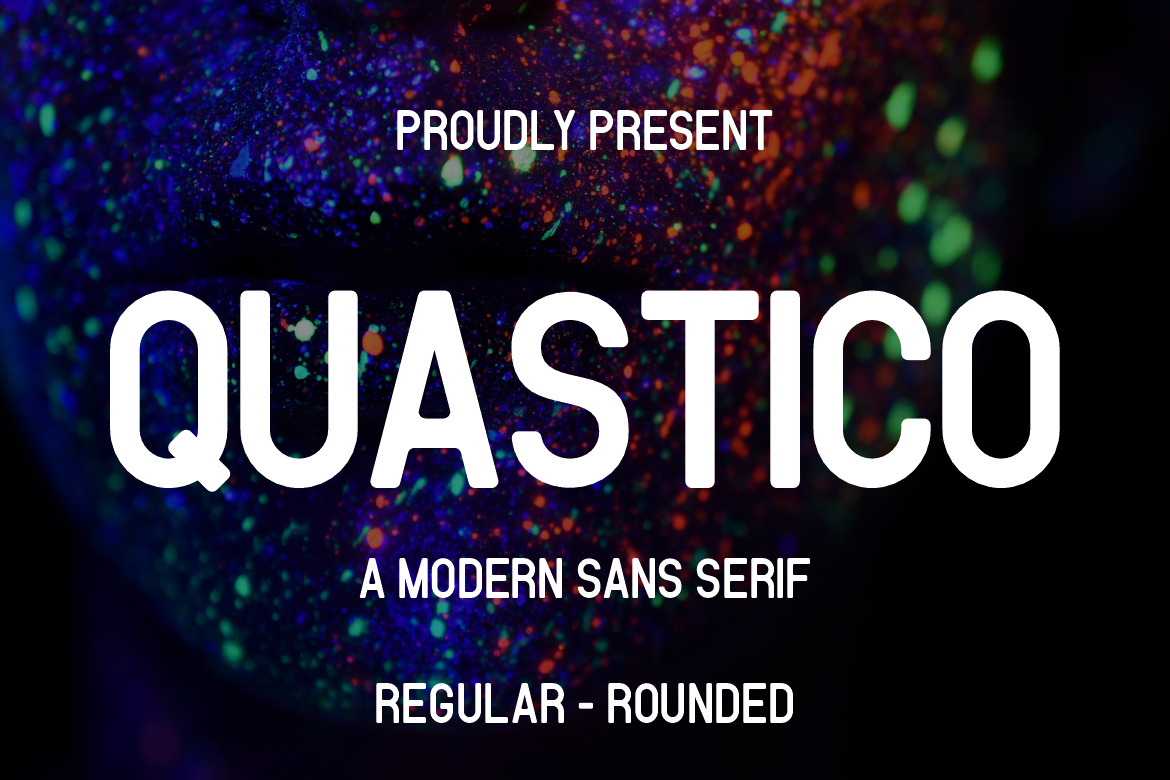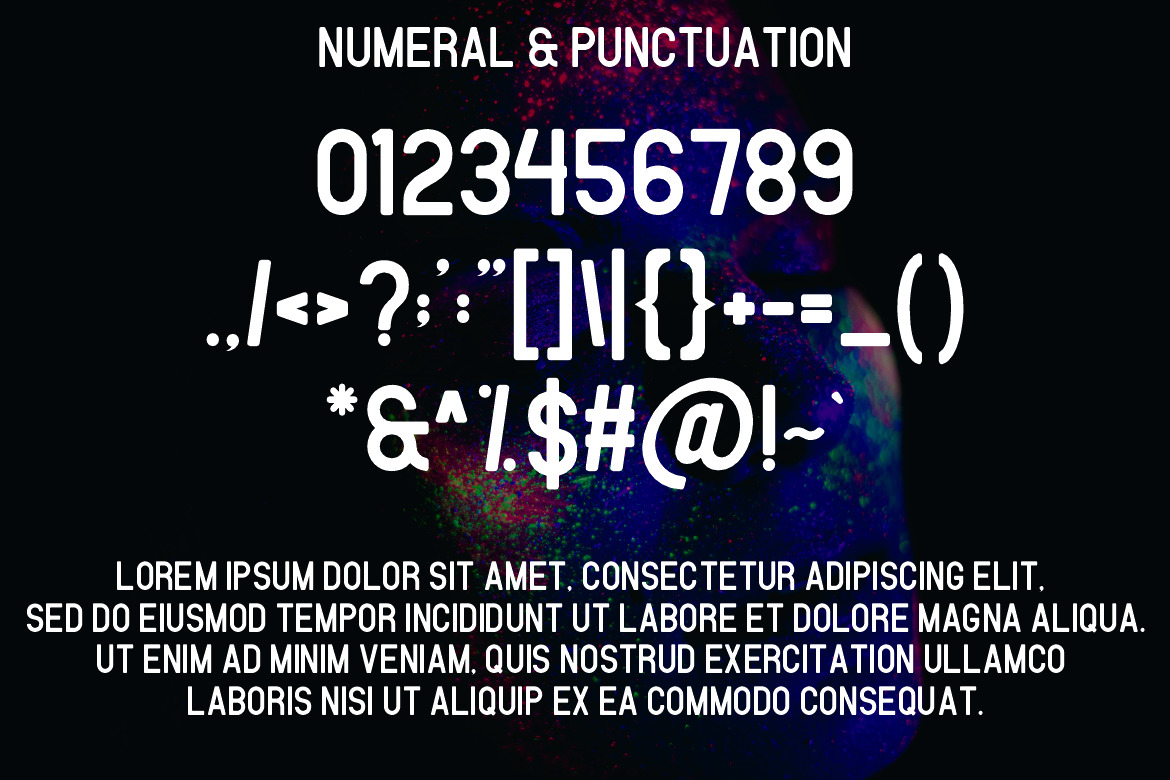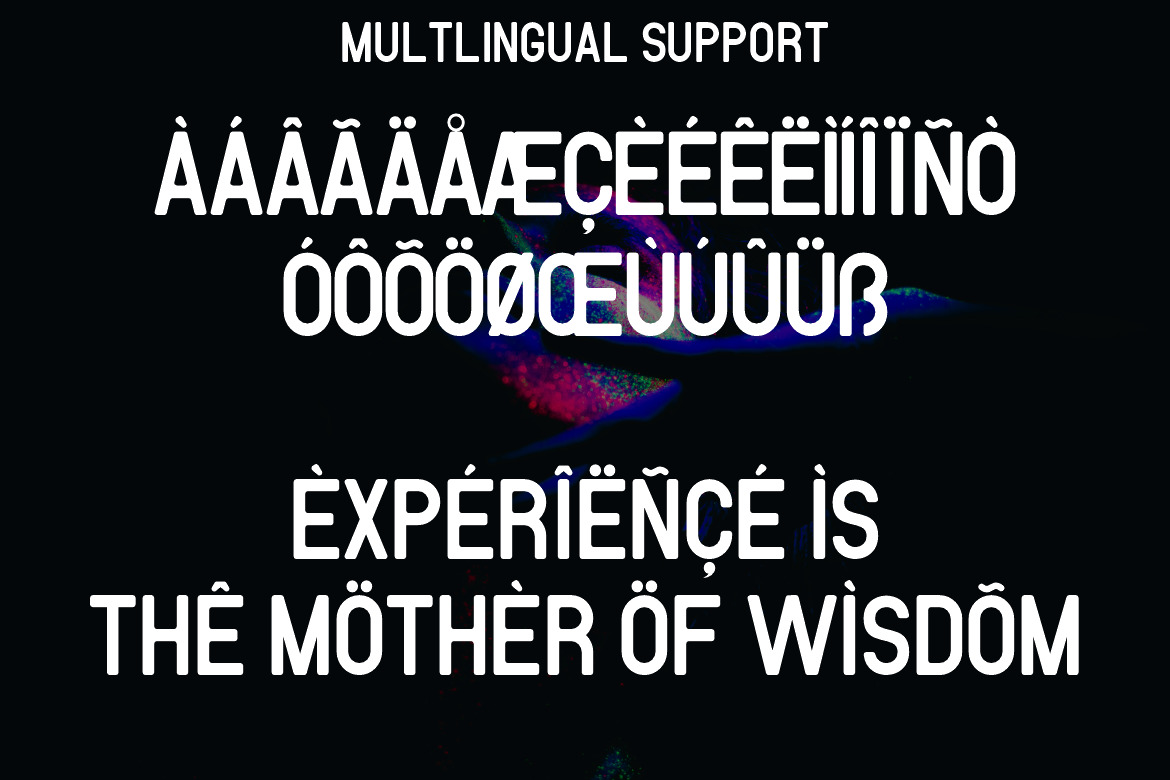
Quastico - Modern Sans Serif Font
Introducing our new product **Quastico** - Modern Sans Serif Font
**Quastico** - Modern Font is a bold and authentic display font. The font is suitable for any branding project like logo, template design, and many more. outstanding in a wide range of contexts.
* Uppercase
* Lowercase
* Multilingual